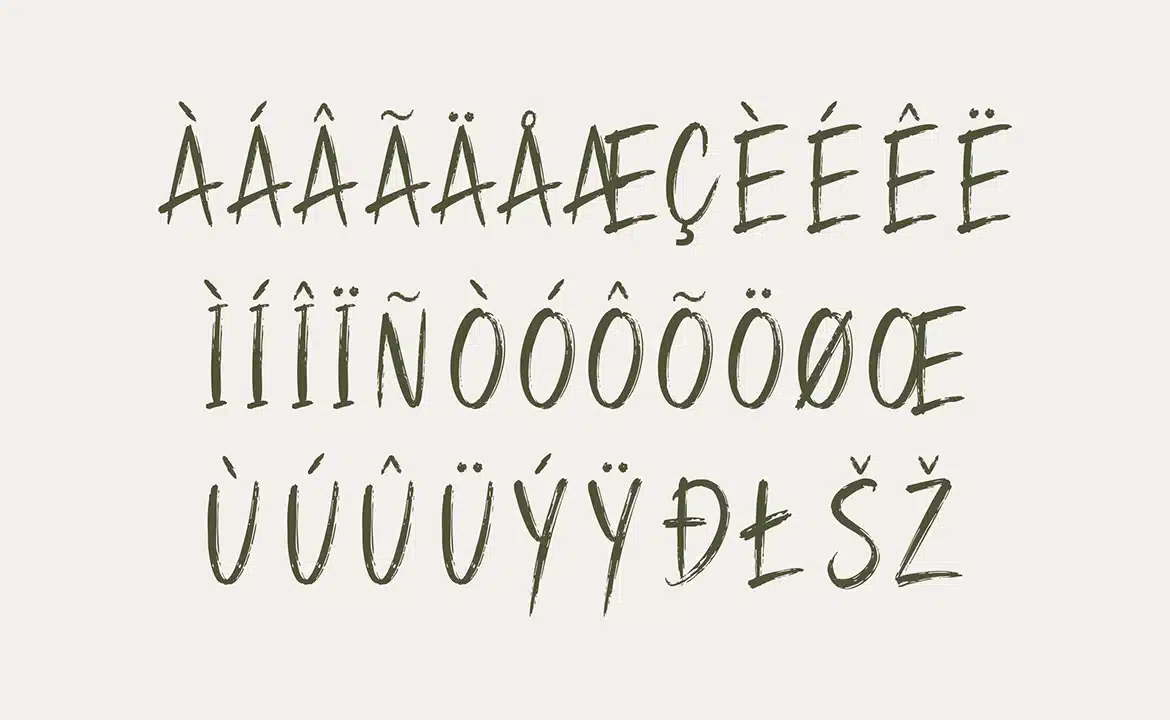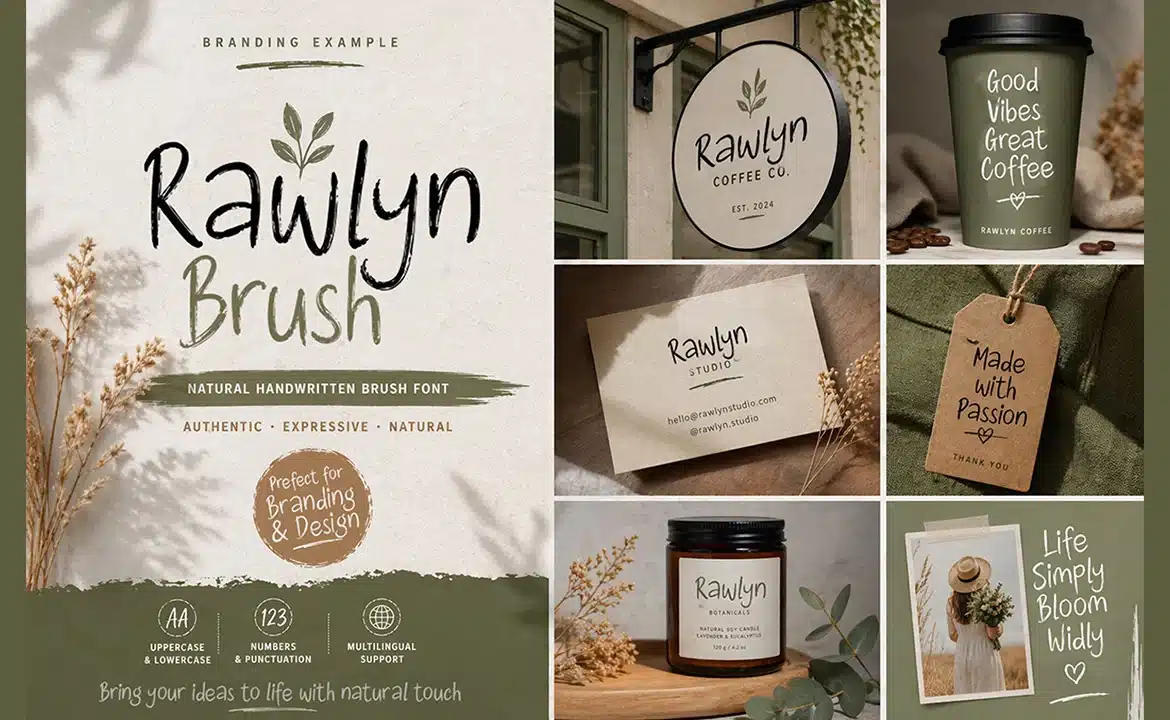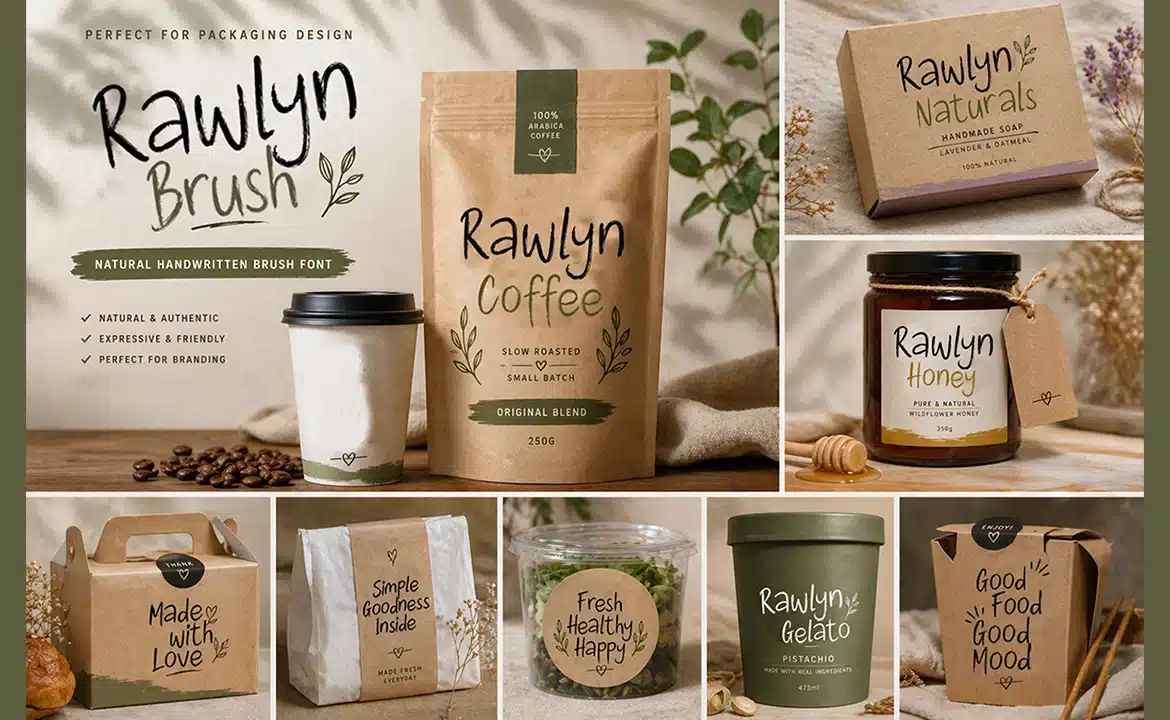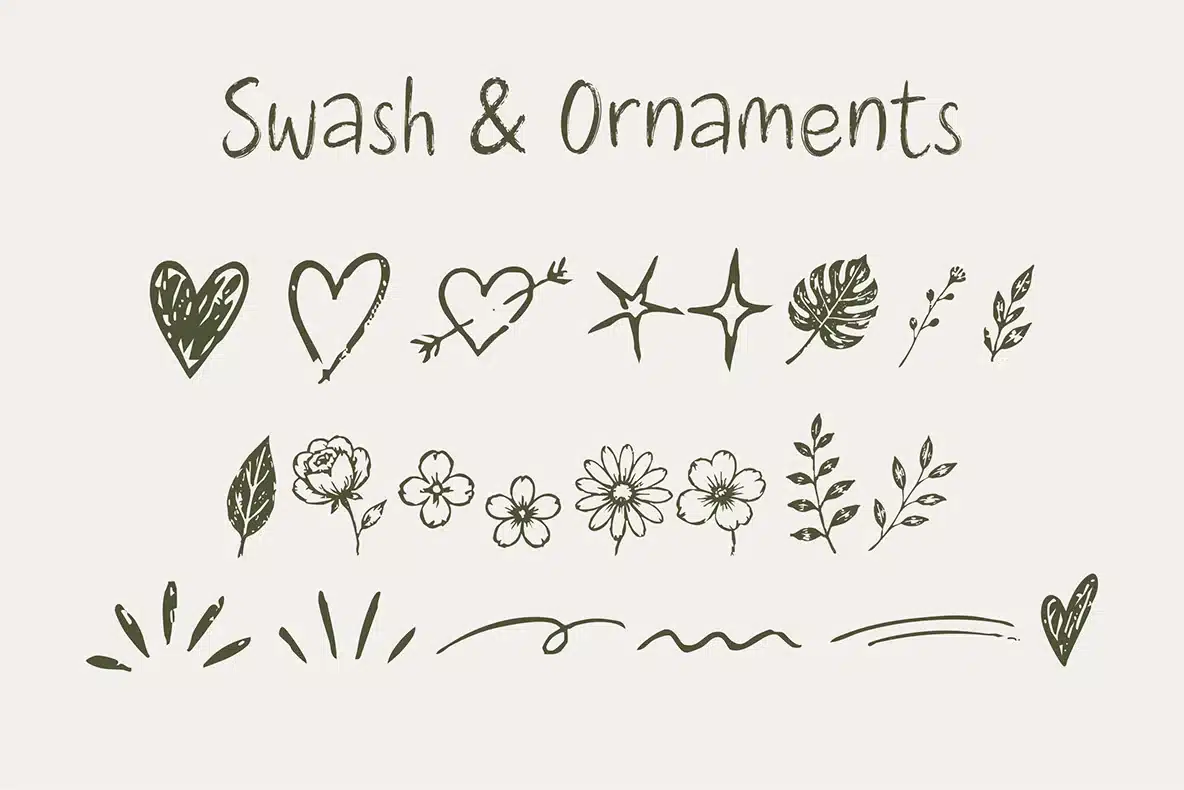
Rawlyn Brush Font
Rawlyn Brush
Rawlyn Brush is a natural handwritten font with a raw brush texture and organic strokes. Designed to feel authentic and expressive, this font brings a perfect balance between casual handwriting and controlled brush style.
Perfect for Branding, Packaging, Social media, Canva templates, Quotes & logotypes and creative design projects.